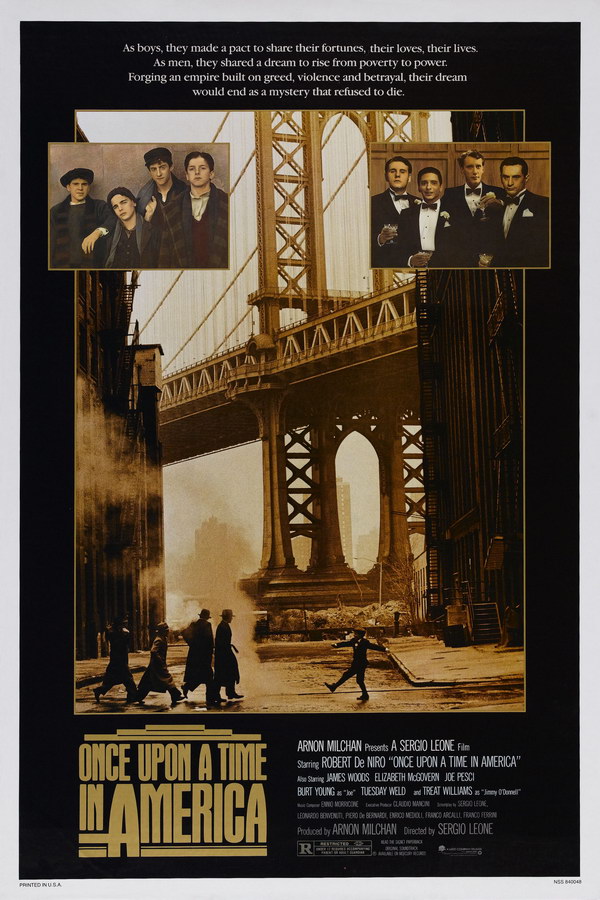
Once Upon a Time in America Font
CrimeOnce Upon a Time in America is a 1984 crime epic film directed by Sergio Leone, depicting the lives of Jewish gangsters in New York City during the 1920s and 1930s.
The movie title on the poster features a font that closely resembles Aurora Condensed. This typeface is known for its tall x-height and rounded diagonal strokes. This font is a commercial one and you can find more information about it here.